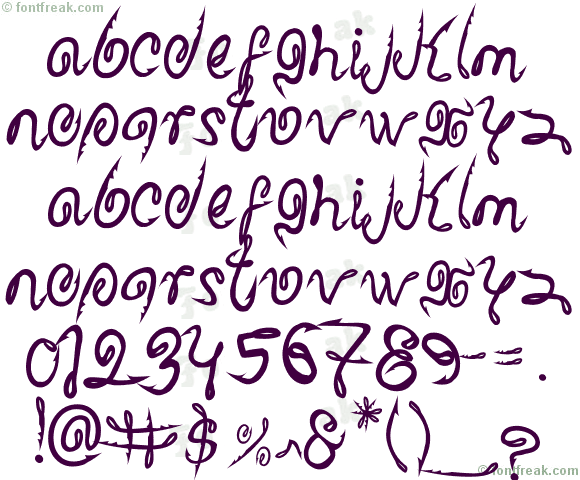
Shark Attack
The Shark Attack font by Galdino Otten Fonts is a unique decorative typeface that captures attention with its playful and whimsical design. This font features a distinct handwritten style, characterized by its fluid strokes and slightly irregular forms that evoke a sense of movement and energy. The strokes are moderately thick, with varying weight that adds a dynamic quality to the text. The spacing between the characters is thoughtfully designed, ensuring legibility while maintaining an artistic flair. Decorative elements, such as the sharp, fin-like extensions at the ends of some letters, enhance the theme of the font, making it visually striking and memorable.
Ideal use cases for the Shark Attack font include movie posters aimed at young audiences, playful branding for surf shops or beach resorts, and eye-catching signage for children's events. Its lively character makes it a great choice for merchandise like t-shirts or hats, where a fun and adventurous vibe is desired. Additionally, graphic designers could use this font for social media graphics or promotional materials that require a touch of creativity and humor.
The target audience for this font includes graphic designers, small business owners, and content creators looking to infuse their projects with a sense of fun and excitement. It’s particularly suitable for those who want to engage a youthful demographic or convey a sense of adventure in their branding.
The Shark Attack font stands out due to its unique combination of playfulness and style, making it an excellent option for various creative projects. With a Shark Attack font free download, users can easily incorporate this striking typeface into their design repertoire, enhancing their work with a distinctive and engaging aesthetic.